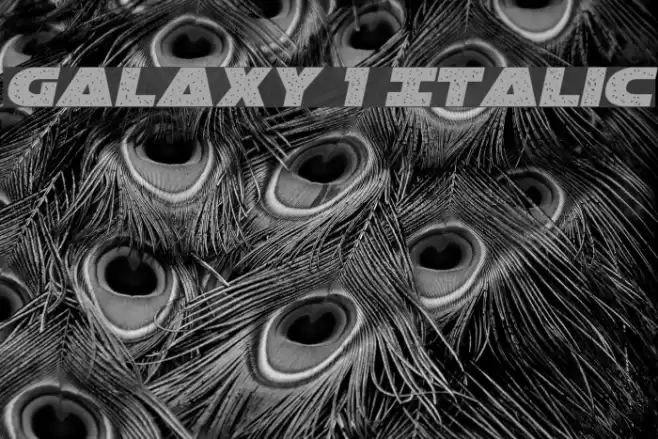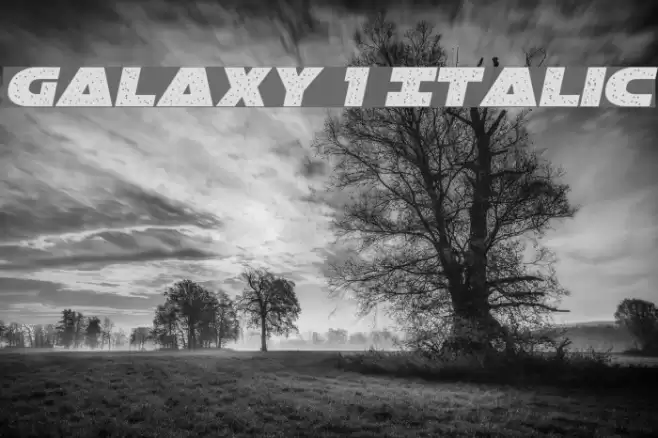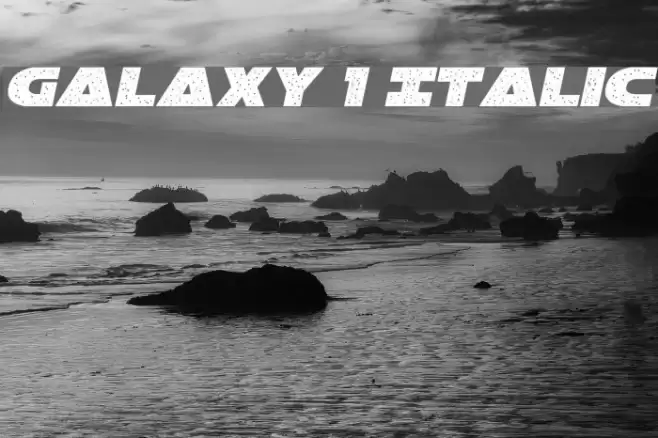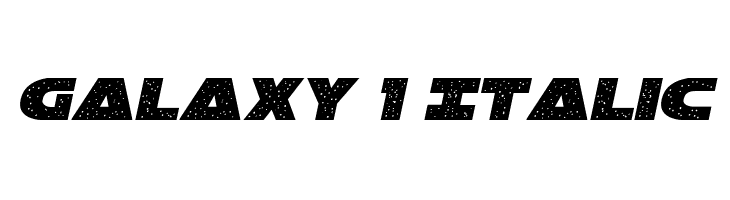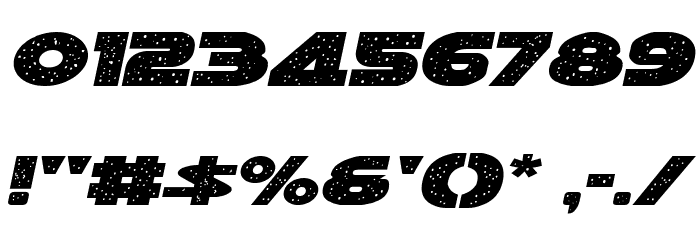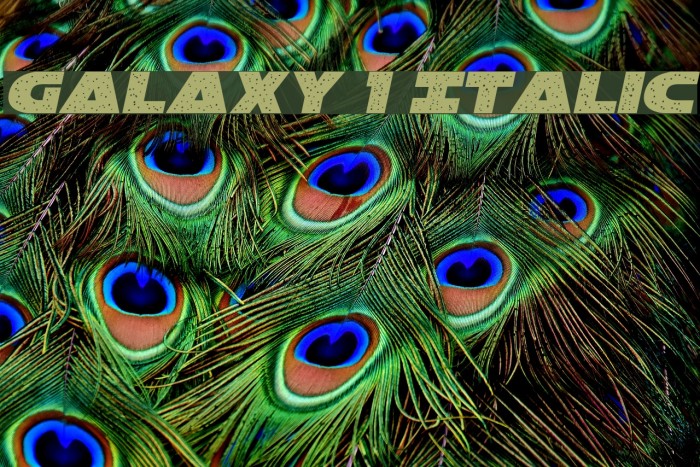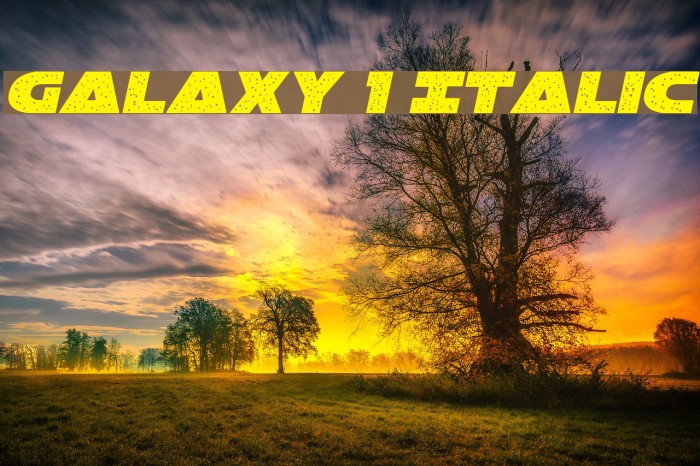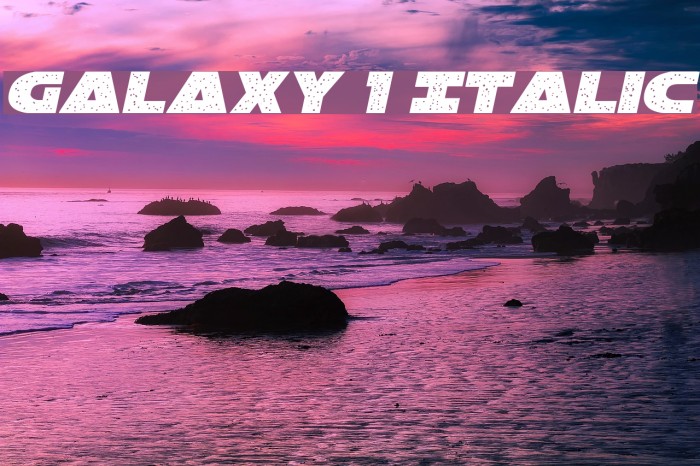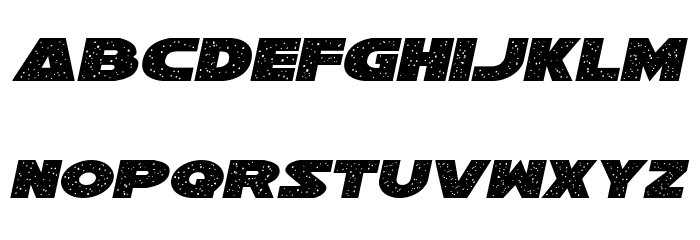
Galaxy 1 Italic Font
Galaxy 1 Italic Description
This font features a bold, italicized style with a unique space-themed design. Each character is filled with small, star-like dots, creating a cosmic effect that stands out. The letters are slanted, adding a dynamic and forward-moving appearance. The bold weight ensures strong visibility, making it suitable for attention-grabbing headlines or titles. The overall design is playful yet modern, with a decorative flair that evokes a sense of adventure and exploration. The spacing between characters is normal, allowing for clear readability despite the intricate detailing within each letter.
A bold, italicized font with a space-themed, starry design from Sci-fi fonts.
- Proposed Projects: Ideal for sci-fi themed posters, children's book covers, space-related branding, or any project needing a futuristic and playful touch.
- Overall Style: Modern, Decorative